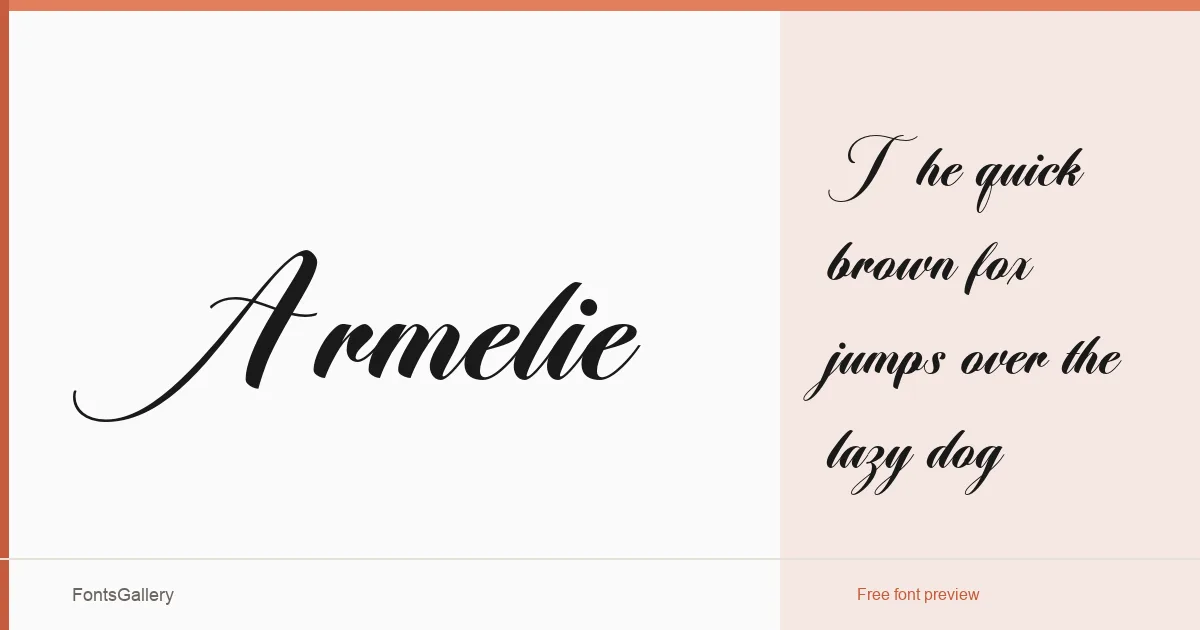
About Armelie Font
Armelie is an elegant script typeface crafted by Leny Parlina under the Brandsemut foundry. It exudes a sense of luxury and romance, making it a standout choice for projects that demand a refined and classic handcrafted feel. Its flowing letterforms capture a timeless sophistication that elevates any design it graces.
As a script typeface, Armelie features graceful, fluid strokes that embody elegance and classical beauty. The letterforms carry a romantic sensibility with smooth curves and delicate transitions that evoke a sense of luxury and tradition. Every character is designed to flow naturally into the next, creating a harmonious and polished appearance throughout.
Armelie shines in applications such as wedding stationery, invitation cards, greeting cards, luxury branding, and logo design where an elevated, romantic aesthetic is desired. Its classic script character makes it especially well-suited for high-end branding and celebratory print materials. For a balanced typographic pairing, consider combining Armelie with Aresink for a complementary handcrafted feel, or with Helvetica for a clean, modern contrast.